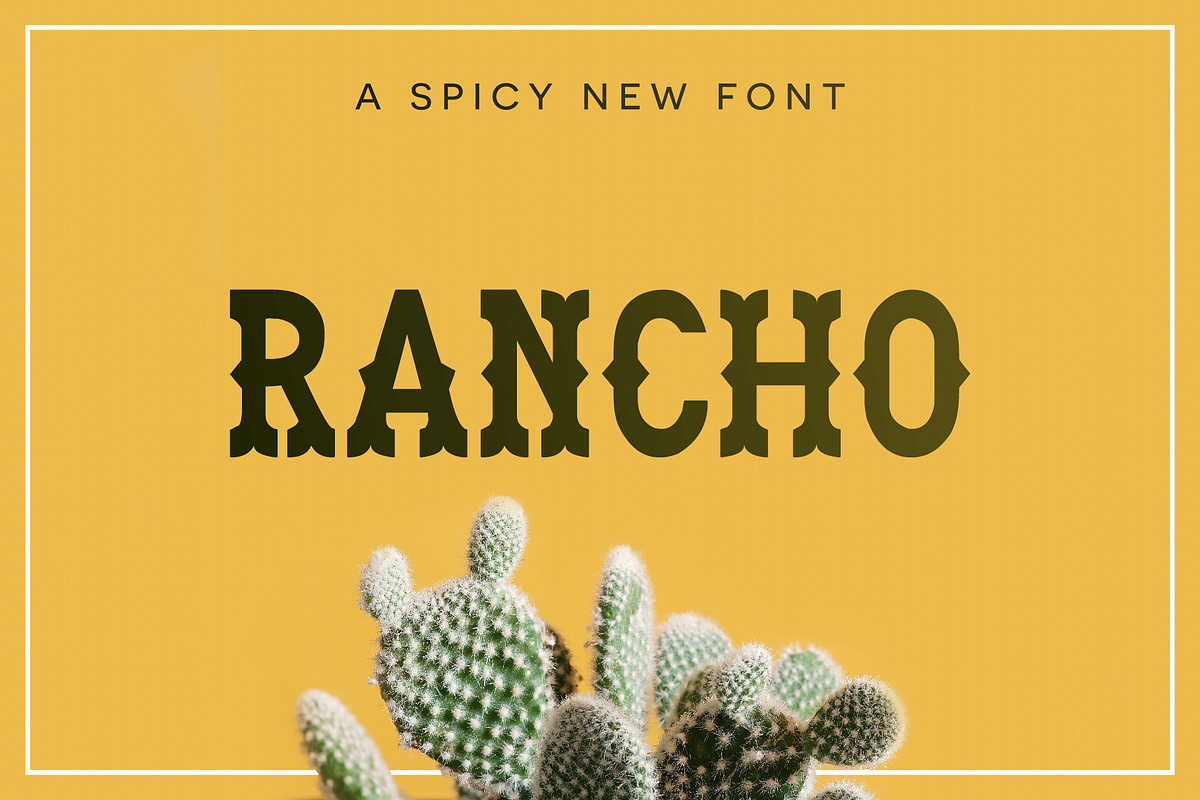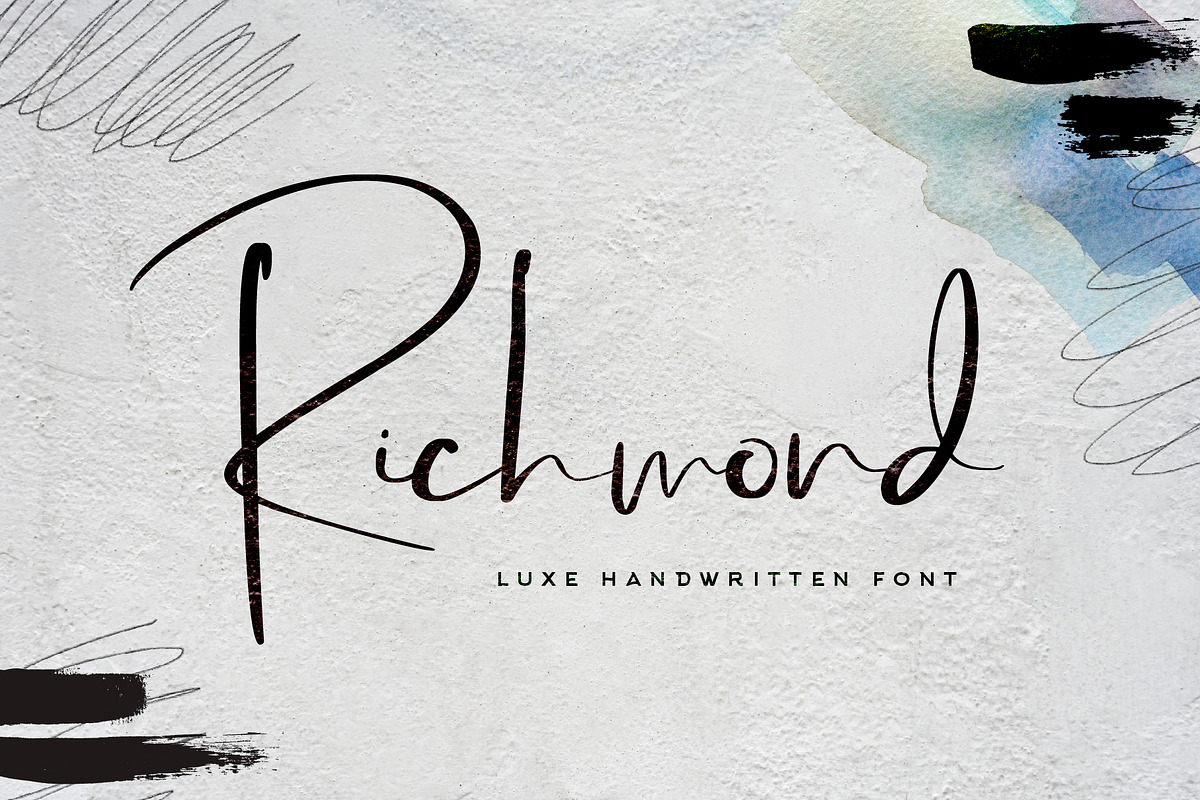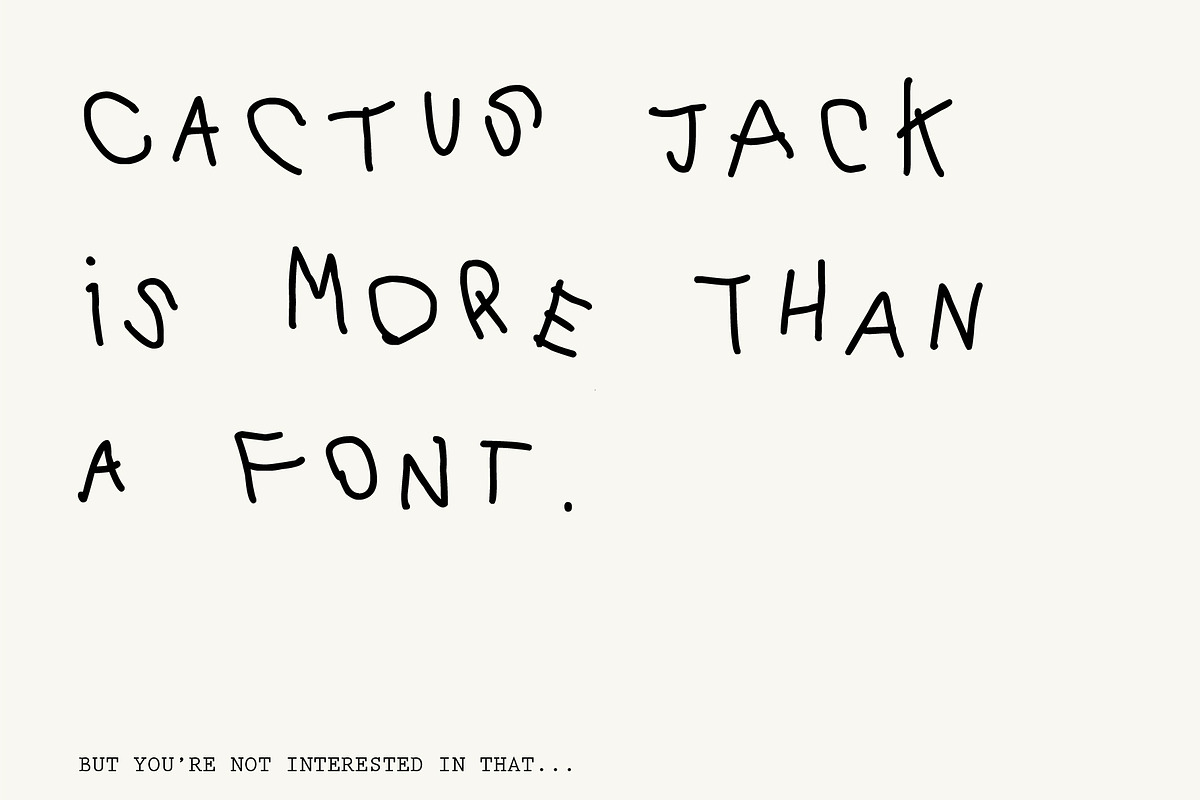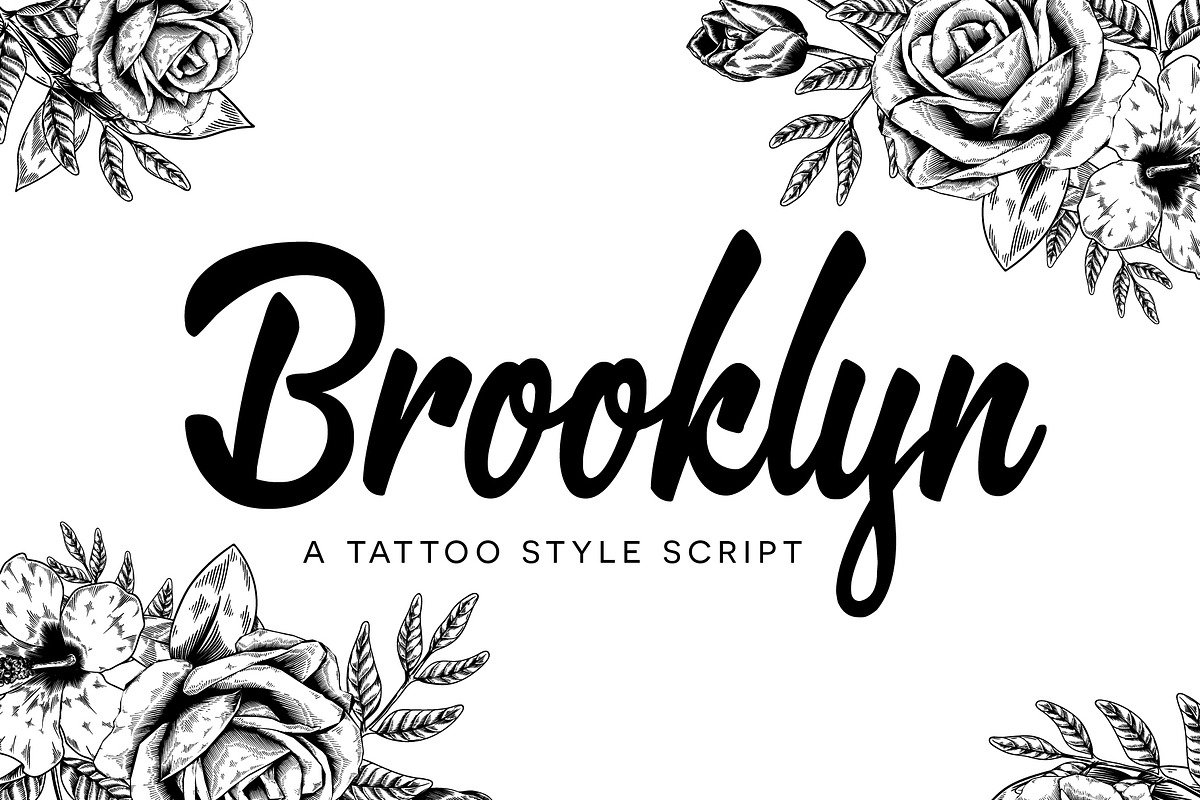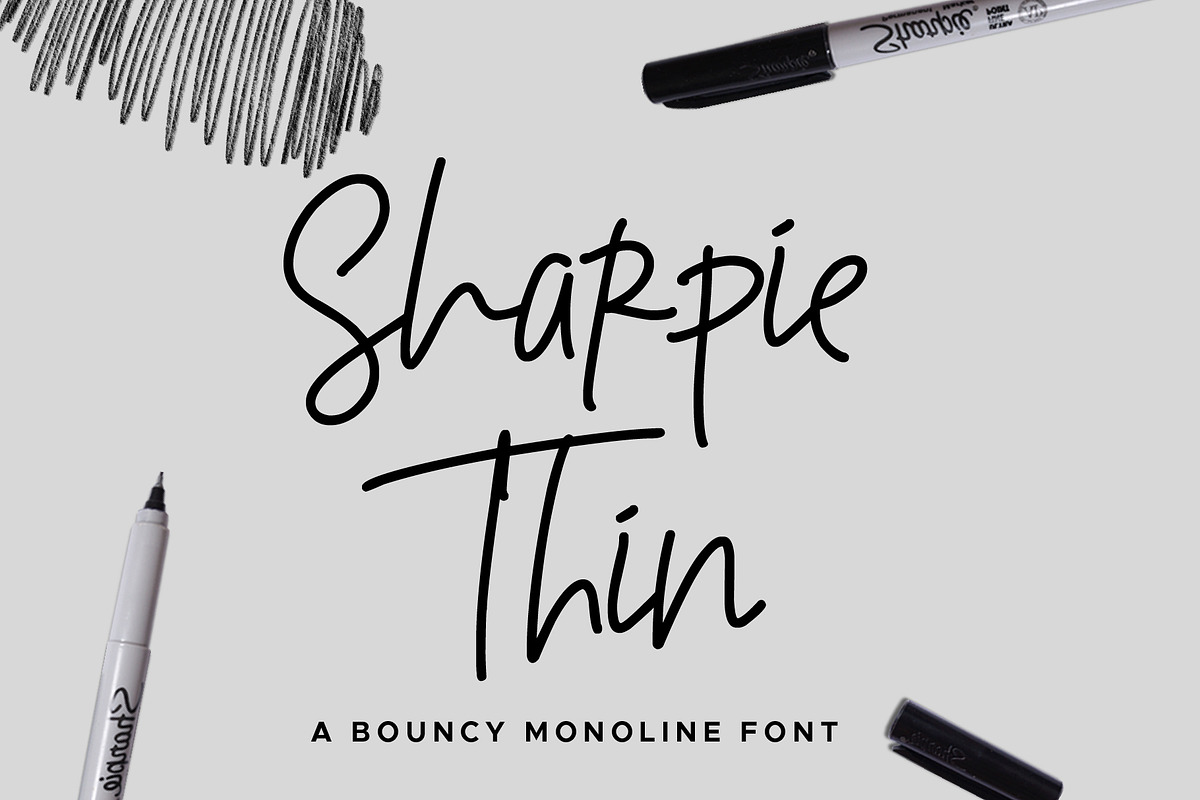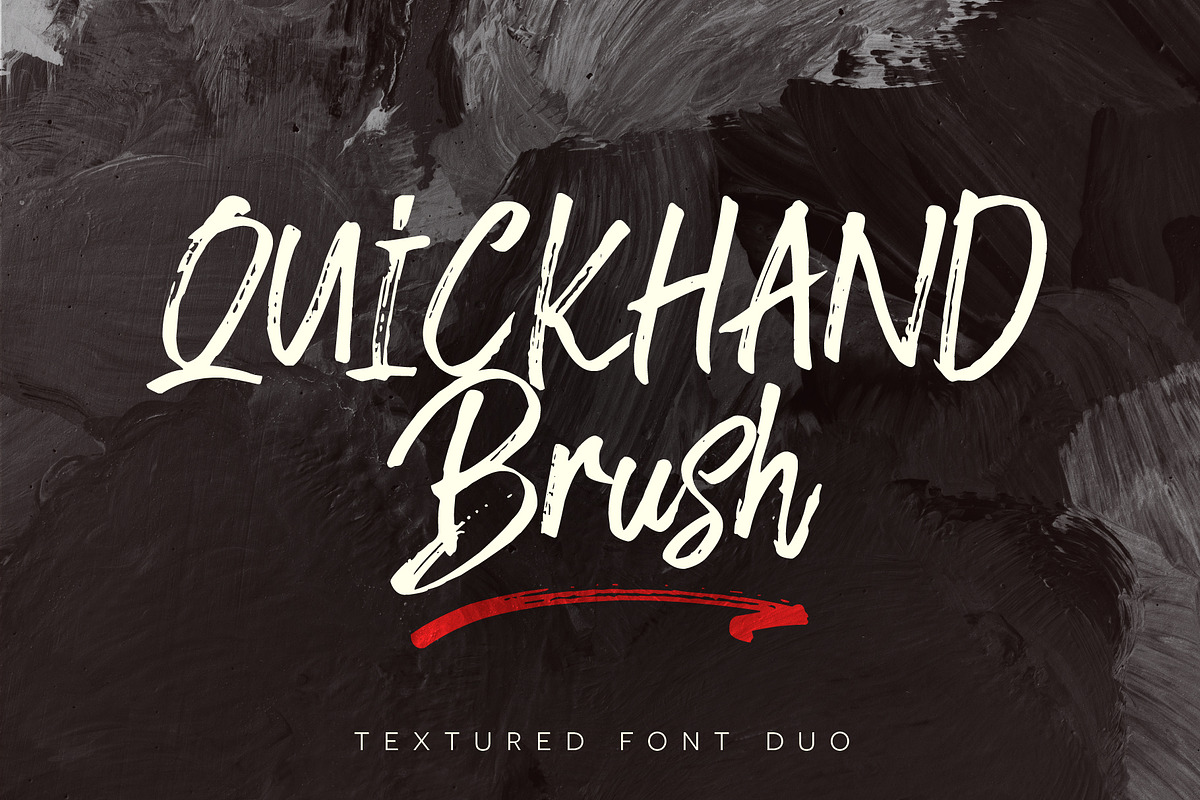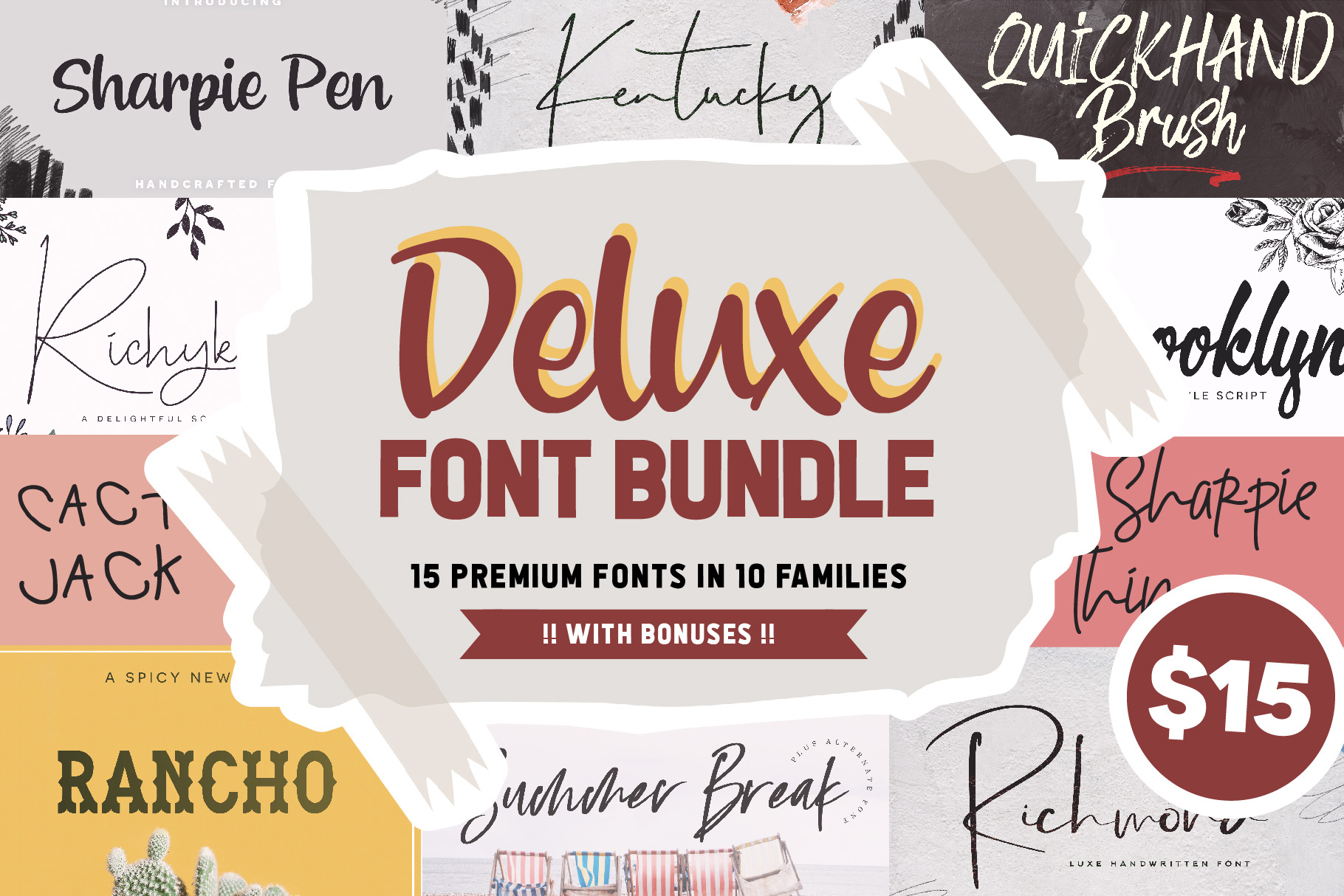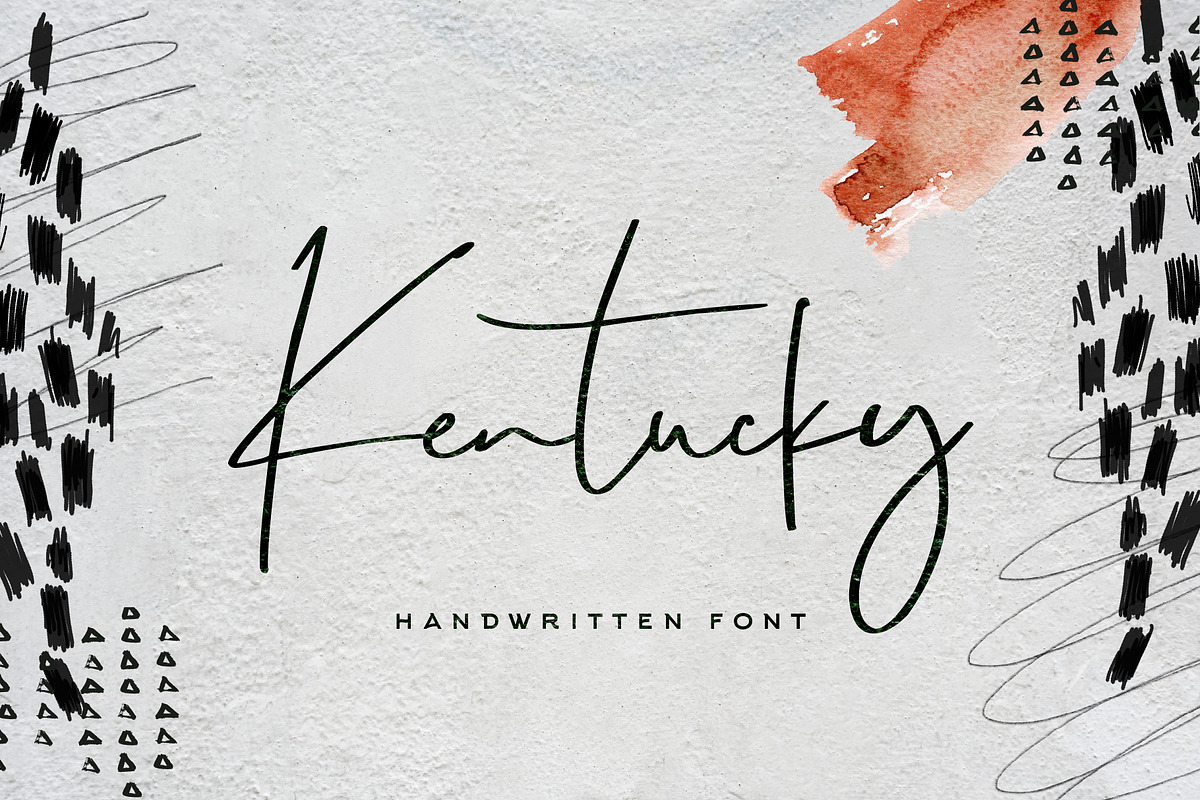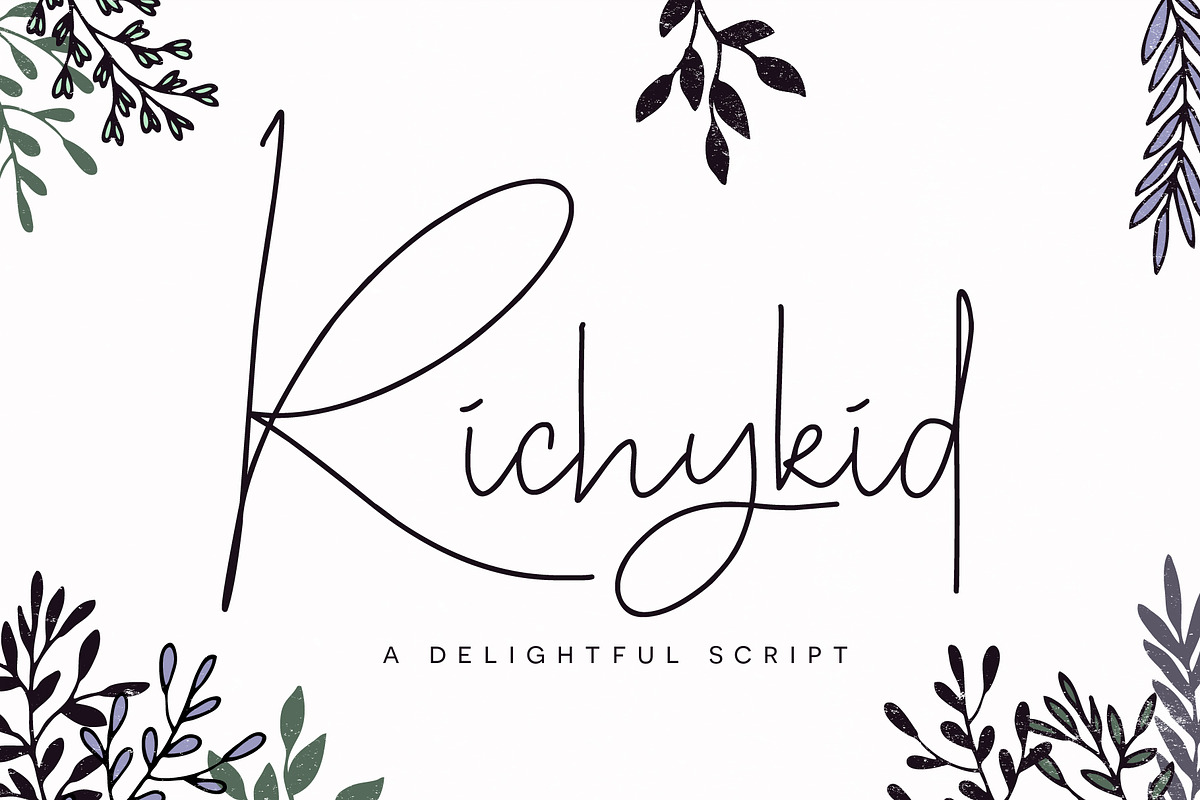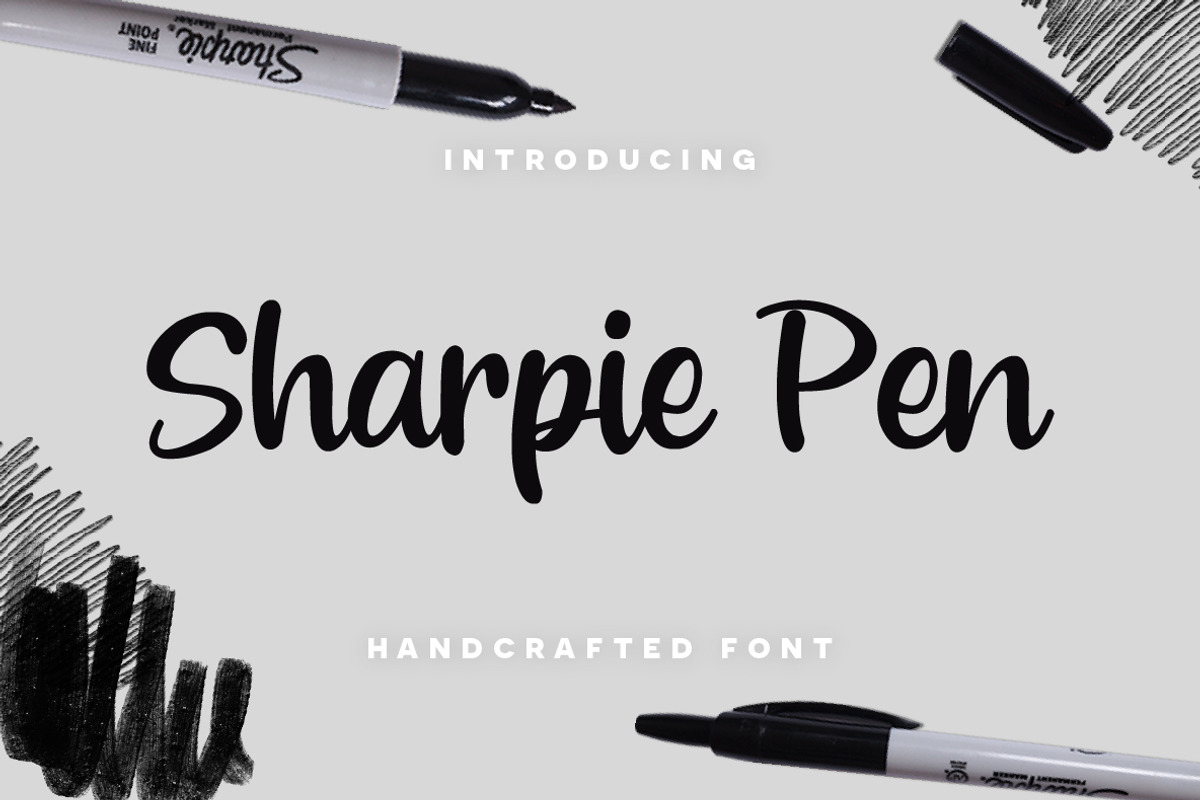
Deluxe Font Bundle + Bonuses
It’s the official Deluxe Font Bundle!
This Bundle Pack comes with my 10 latest font families which includes 15 fonts in total! You'll receive a wide range a premium hand drawn fonts of all shapes and sizes to help you create all sorts of magic. Great for wedding greeting cards, logos, branding materials, business cards, quotes, posters, Cricut artwork and more!
- Brooklyn
- Cactus Jack
- Cactus Jack Alternate
- Kentucky
- Kentucky Alternate
- Quickhand 1
- Quickhand 2
- Rancho
- Richmond
- Richykid
- Sharpie Pen
- Sharpie Thin
- Sharpie Thin Alternate
- Summer Break